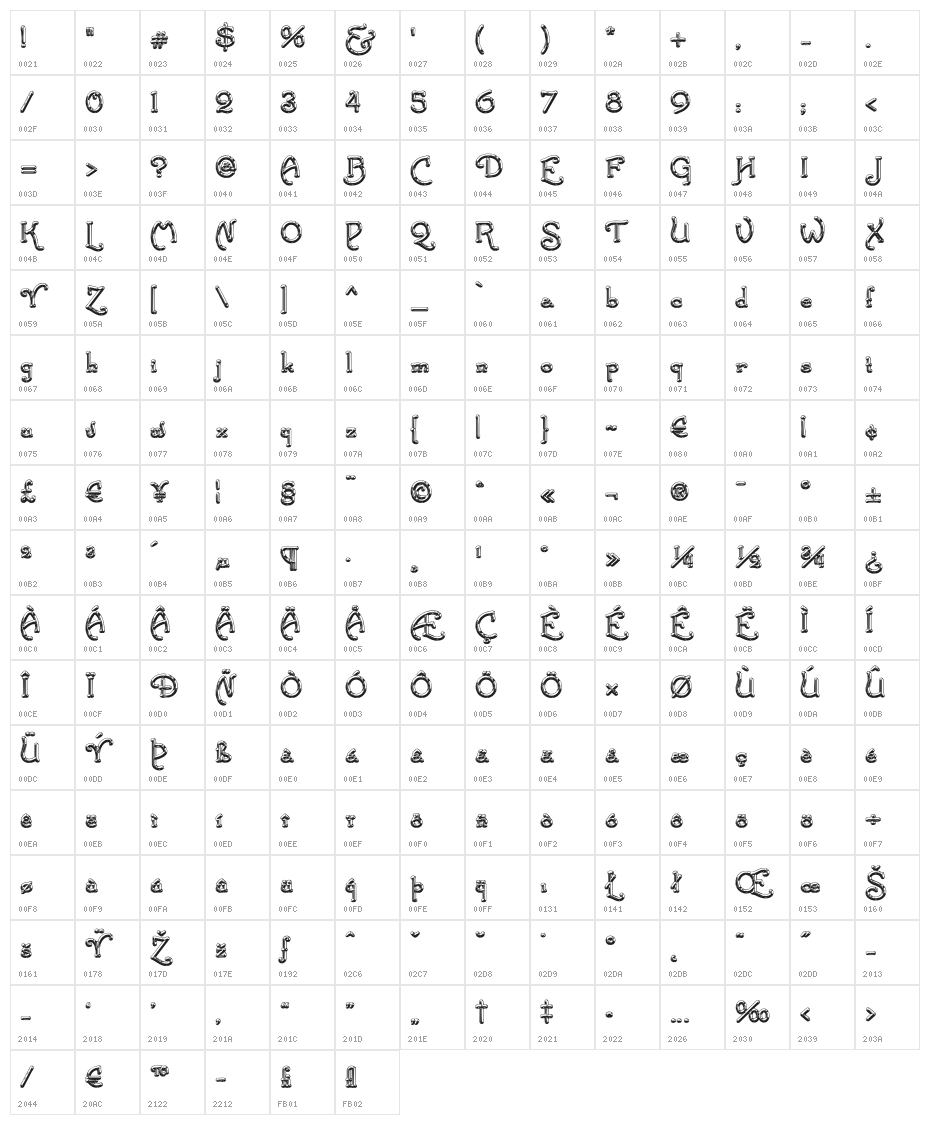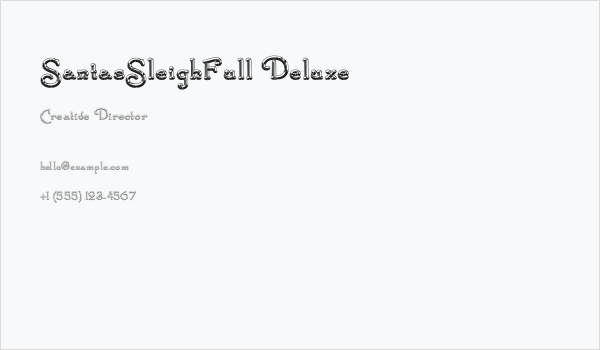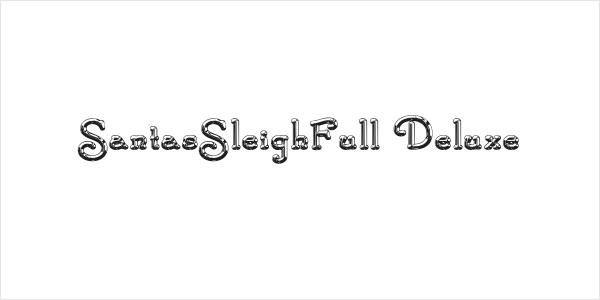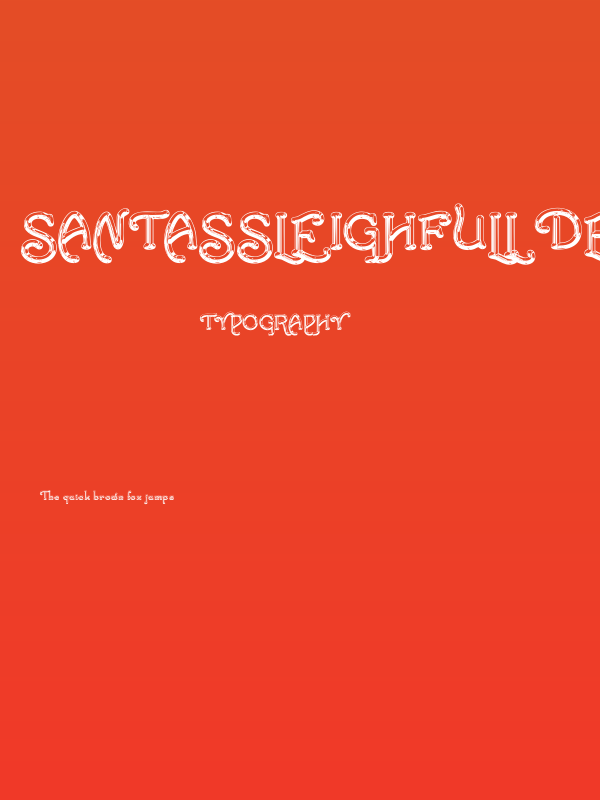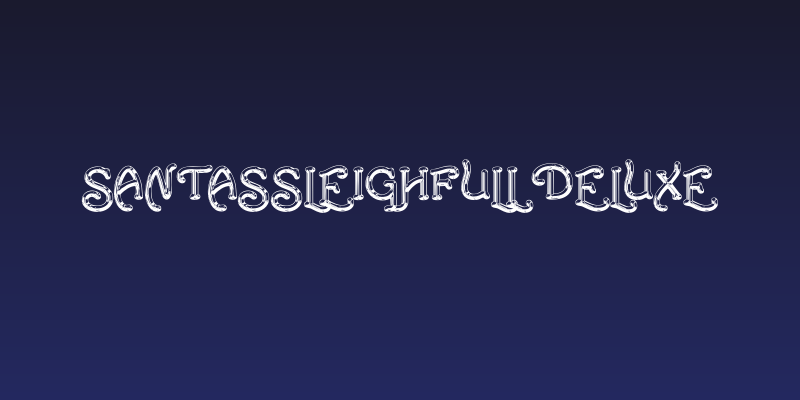
SantasSleighFull Deluxe Font
SantasSleighFull Deluxe Description
This font features a playful and whimsical design, reminiscent of festive decorations and holiday cheer. The characters are bold and rounded, with a three-dimensional effect that gives them a balloon-like appearance. Each letter is crafted with a sense of fun, incorporating curves and loops that add to its lively personality. The font maintains a consistent thickness throughout, providing a uniform look while still allowing for individual character flair. Its unique style makes it stand out, perfect for capturing attention and conveying a sense of joy and celebration.
| Proposed Projects | Ideal for holiday-themed projects, greeting cards, party invitations, children's books, and playful branding. |